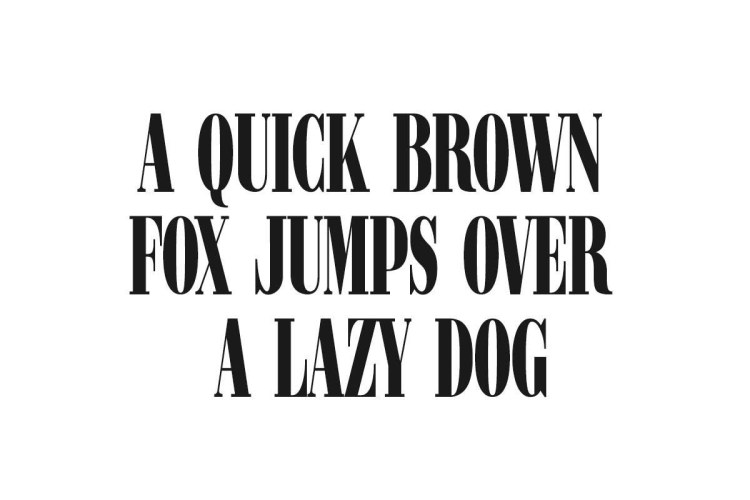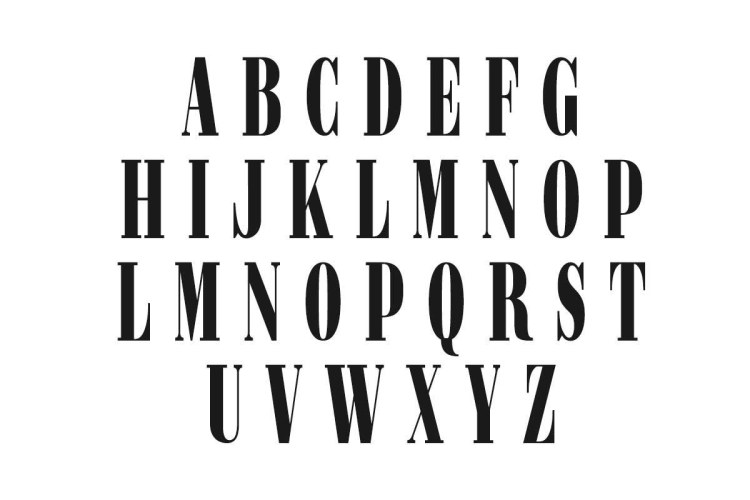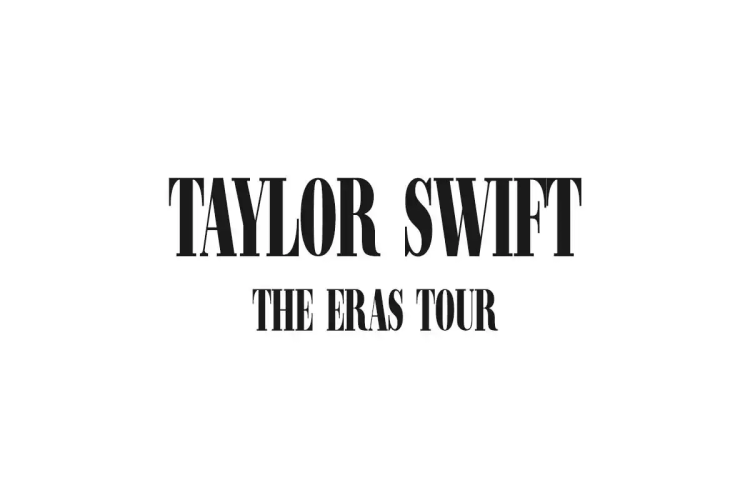
Eras Tour Font
The Taylor Swift Eras Tour Font is a typographic symbolization that refers to Taylor Swift’s different musical eras and tours. As an artist famous for her artistic precision and branding, Taylor Swift frequently employs apt typography to brand her album releases and concert tours. This results in creating a coherent visual identity that connects with her fans.
In her music career, Taylor Swift has employed different fonts and design features in her albums and tours. These design elements reflect the evolution and transformation of her music. For instance, the album “Fearless” featured elegant, handwritten fonts, while “Reputation” had a bold and edgy style. Swift’s typography choices have been instrumental in creating visual narratives that complement her music.
The Eras Tour Font can change according to the era or tour it’s meant. For example:
In the “Fearless” era, Swift’s transition from country to pop music, the fonts were sometimes very delicate and whimsical, which made them capable of reflecting the young and innocent nature of her early songs and the romantic themes.
The typography of “Speak Now” relies on vintage-influenced fonts in collaboration with ornate flourishes to conceptually reflect the songwriting style, which is narrative.
Red witnessed some style transformation compared to the previous albums, where different genres of music and a wide range of emotions were expressed through bolder and catchier fonts.
The typeface for the 1989 world tour was drawn using a minimalistic style with some inspiration from retro elements and 80s pop culture so that the album and tour could come together.
During her “Reputation” era, Swift had what looked like a structural rebirth. She somehow managed to look scary and inviting at the same time. That was visible in the choice of typography – bold, edgy fonts with slight grit attempted to feature attitude and rebelliousness.
The typography of “Lover” was a comeback to a more relaxed and light-hearted font, using pastel colours and romantic fonts that made sense of romantic nostalgia.
Taylor Swift’s new era, “Midnights”, began with the empowering album “Reputation.” Swift depicted a transformation from her teen pop style to a more melancholy persona that came into life in her music and the aesthetic elements that were part of her creative work.
From folklore to evermore, Swift’s latest albums have reintroduced, through the piano, the typographical aesthetic of intimate and contemplative music.
In these periods, Taylor Swift has shown that she possesses an excellent gift for typography. She uses it to shape her artistic identity and connect visually with fans. With the reasonable choice of typefaces that echo the mood and spirit of her music, Swift has not only unified but also generated a unique, visually striking brand identity that hits home with her audience worldwide.
Eras Tour Font is a Serif Fonts font that brings a professional and versatile look to your projects. The Taylor Swift Eras Tour Font is a typographic symbolization that refers to Taylor Swift’s different musical eras and tours.